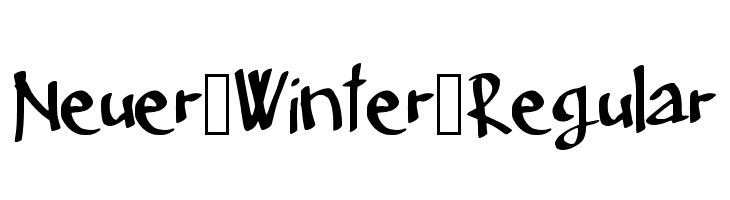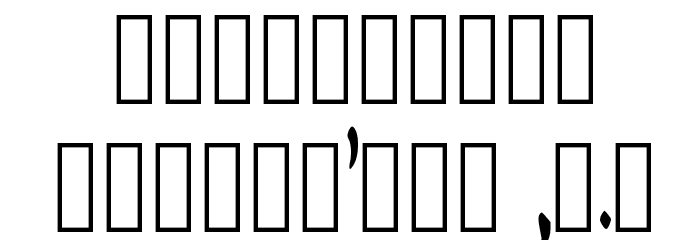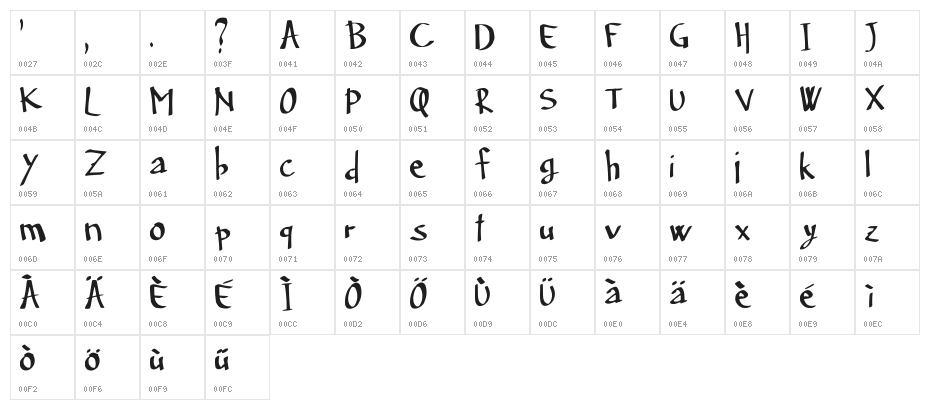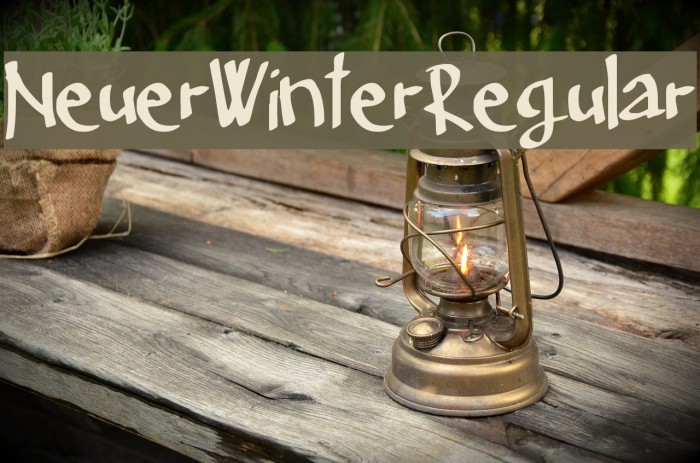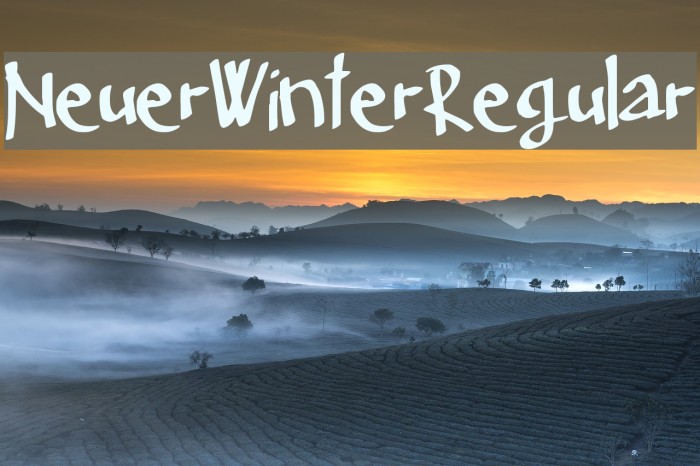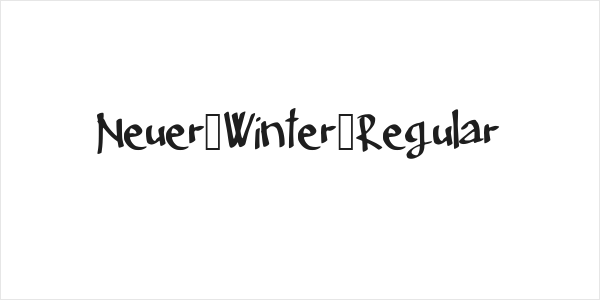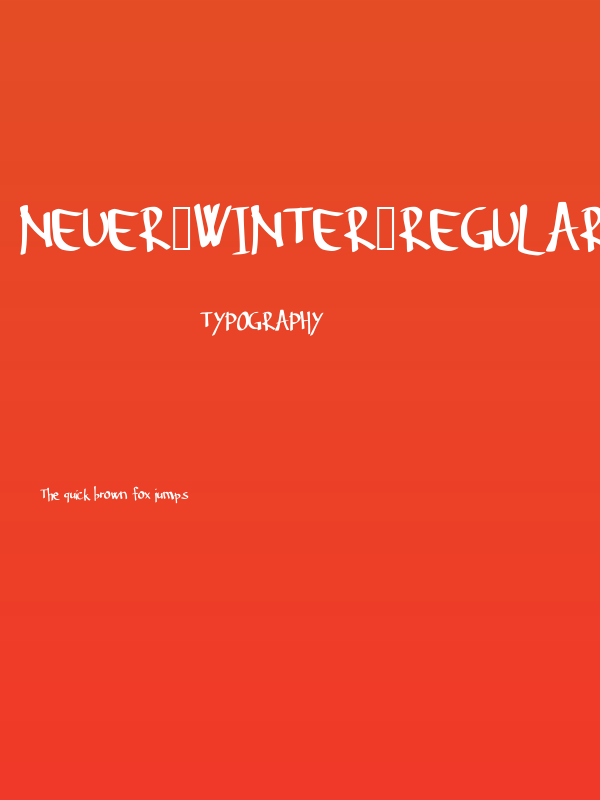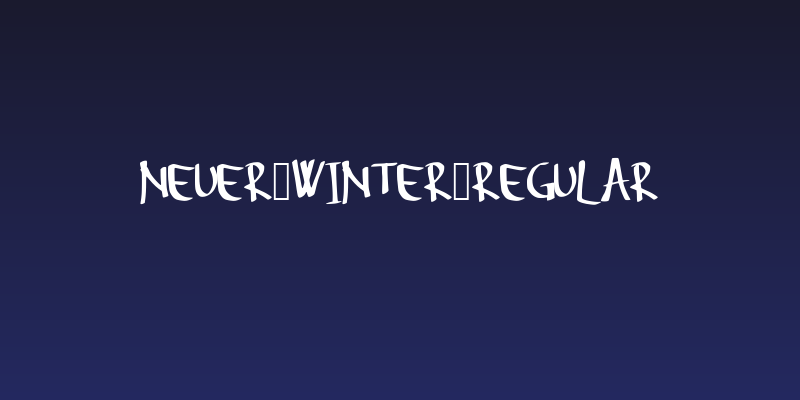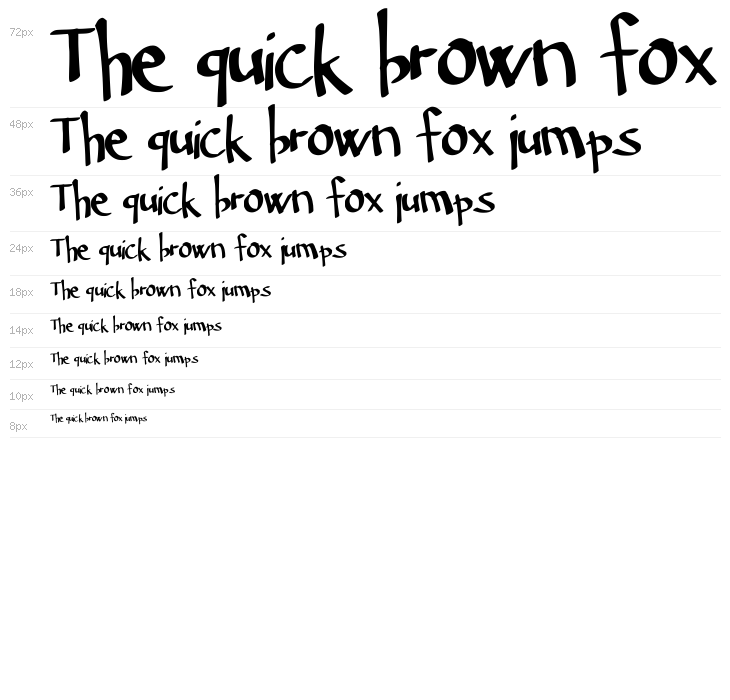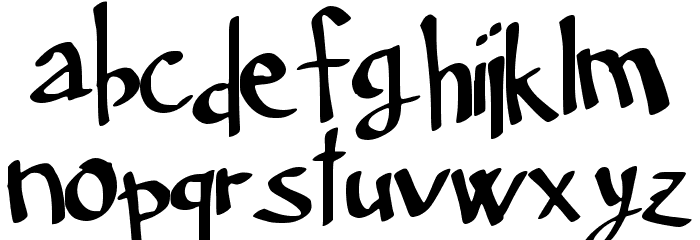
Neuer_Winter_Regular Font
Neuer_Winter_Regular Description
This font features a dynamic and expressive style, characterized by its bold and playful letterforms. The uppercase letters exhibit a strong presence with slightly exaggerated curves and angles, creating a sense of movement and energy. The lowercase letters maintain this lively aesthetic, with some characters displaying unique flourishes that add to the font's charm. The overall appearance is informal yet confident, making it suitable for creative and artistic projects. The font includes a variety of special characters, enhancing its versatility for different design needs.